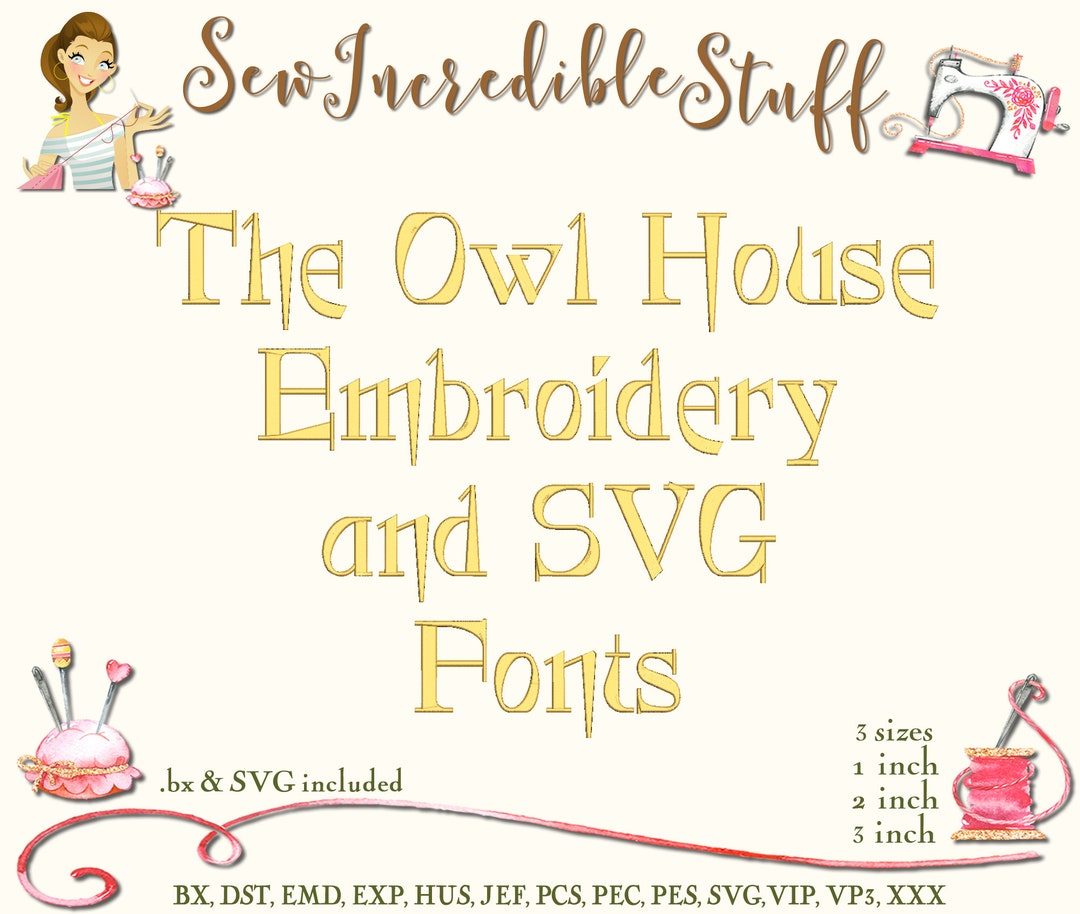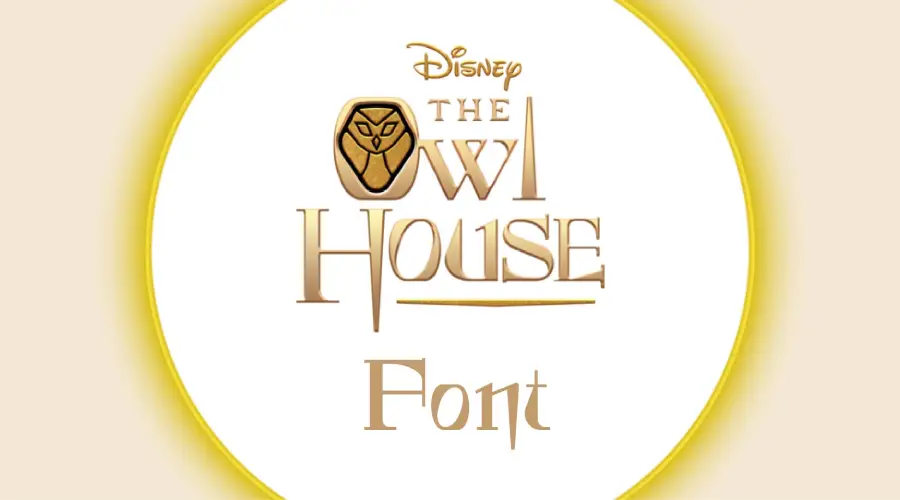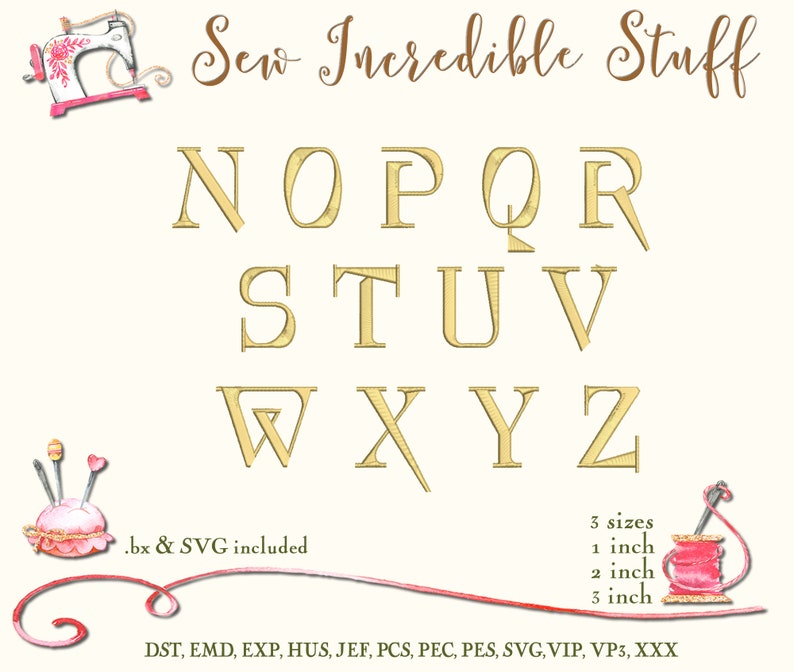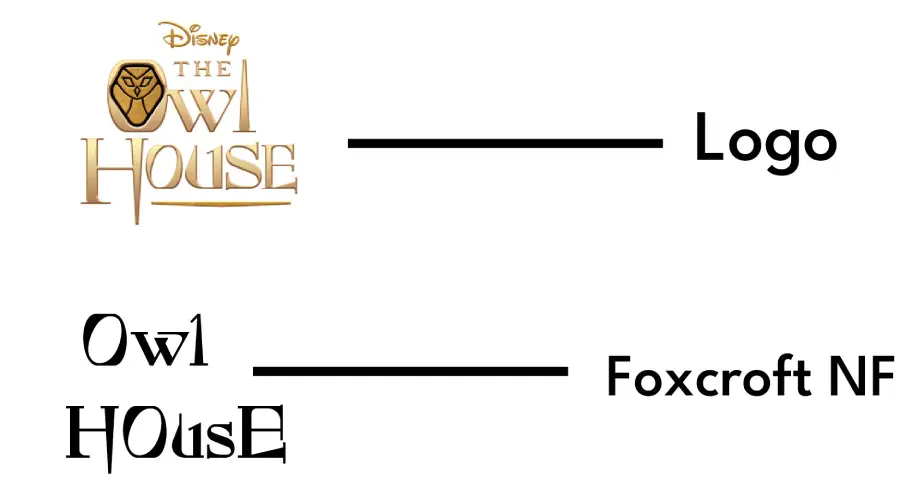
Owl House Font
Owl House Font - The “owl house” is a heavily modified version of foxcroft nf. One modelsheet i found on the wiki mentions some of the fonts used for penstagram. While i don’t know the font of penstagram logo. Now you can use these to make your own fake owl house materials! The typeface was designed by nick curtis based on vassar, which showed up in the.
While i don’t know the font of penstagram logo. The typeface was designed by nick curtis based on vassar, which showed up in the. The “owl house” is a heavily modified version of foxcroft nf. One modelsheet i found on the wiki mentions some of the fonts used for penstagram. Now you can use these to make your own fake owl house materials!
While i don’t know the font of penstagram logo. Now you can use these to make your own fake owl house materials! One modelsheet i found on the wiki mentions some of the fonts used for penstagram. The “owl house” is a heavily modified version of foxcroft nf. The typeface was designed by nick curtis based on vassar, which showed up in the.
Now you can use these to make your own fake owl house materials! The typeface was designed by nick curtis based on vassar, which showed up in the. While i don’t know the font of penstagram logo. One modelsheet i found on the wiki mentions some of the fonts used for penstagram. The “owl house” is a heavily modified version.
While i don’t know the font of penstagram logo. The “owl house” is a heavily modified version of foxcroft nf. One modelsheet i found on the wiki mentions some of the fonts used for penstagram. The typeface was designed by nick curtis based on vassar, which showed up in the. Now you can use these to make your own fake.
The “owl house” is a heavily modified version of foxcroft nf. While i don’t know the font of penstagram logo. Now you can use these to make your own fake owl house materials! The typeface was designed by nick curtis based on vassar, which showed up in the. One modelsheet i found on the wiki mentions some of the fonts.
The “owl house” is a heavily modified version of foxcroft nf. The typeface was designed by nick curtis based on vassar, which showed up in the. While i don’t know the font of penstagram logo. One modelsheet i found on the wiki mentions some of the fonts used for penstagram. Now you can use these to make your own fake.
While i don’t know the font of penstagram logo. The typeface was designed by nick curtis based on vassar, which showed up in the. Now you can use these to make your own fake owl house materials! The “owl house” is a heavily modified version of foxcroft nf. One modelsheet i found on the wiki mentions some of the fonts.
Now you can use these to make your own fake owl house materials! The typeface was designed by nick curtis based on vassar, which showed up in the. While i don’t know the font of penstagram logo. One modelsheet i found on the wiki mentions some of the fonts used for penstagram. The “owl house” is a heavily modified version.
The typeface was designed by nick curtis based on vassar, which showed up in the. While i don’t know the font of penstagram logo. Now you can use these to make your own fake owl house materials! The “owl house” is a heavily modified version of foxcroft nf. One modelsheet i found on the wiki mentions some of the fonts.
One modelsheet i found on the wiki mentions some of the fonts used for penstagram. The typeface was designed by nick curtis based on vassar, which showed up in the. Now you can use these to make your own fake owl house materials! While i don’t know the font of penstagram logo. The “owl house” is a heavily modified version.
The Owl House Font
The typeface was designed by nick curtis based on vassar, which showed up in the. While i don’t know the font of penstagram logo. The “owl house” is a heavily modified version of foxcroft nf. Now you can use these to make your own fake owl house materials! One modelsheet i found on the wiki mentions some of the fonts.
One Modelsheet I Found On The Wiki Mentions Some Of The Fonts Used For Penstagram.
The typeface was designed by nick curtis based on vassar, which showed up in the. The “owl house” is a heavily modified version of foxcroft nf. Now you can use these to make your own fake owl house materials! While i don’t know the font of penstagram logo.